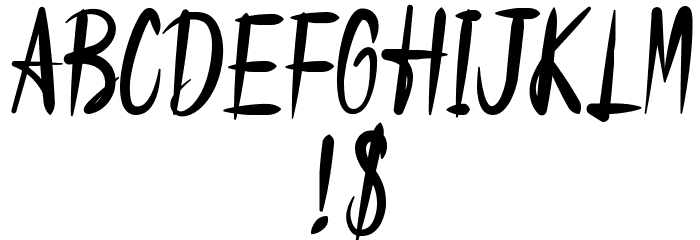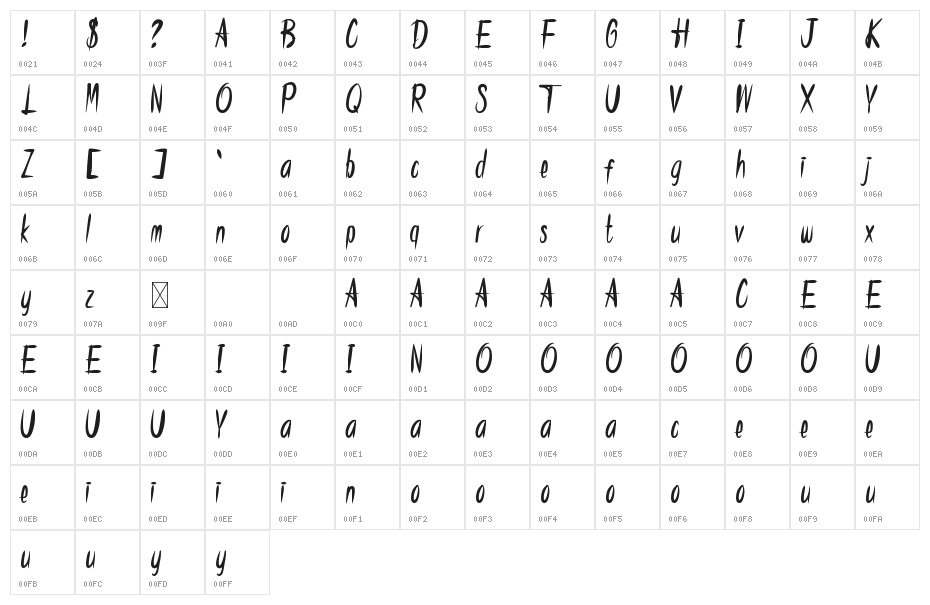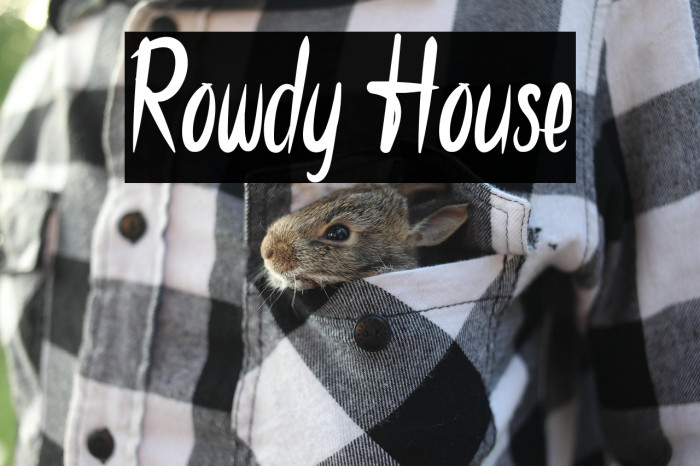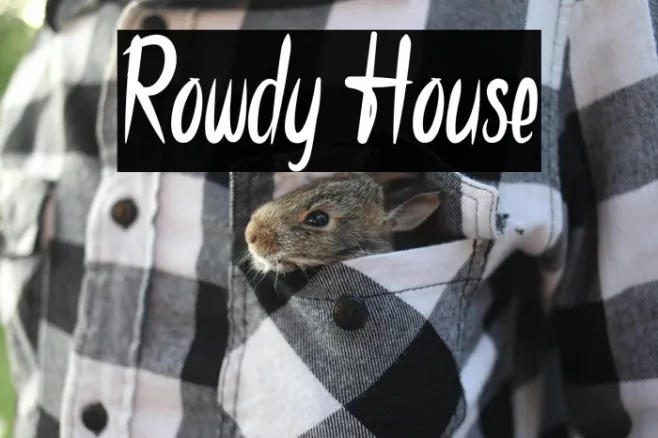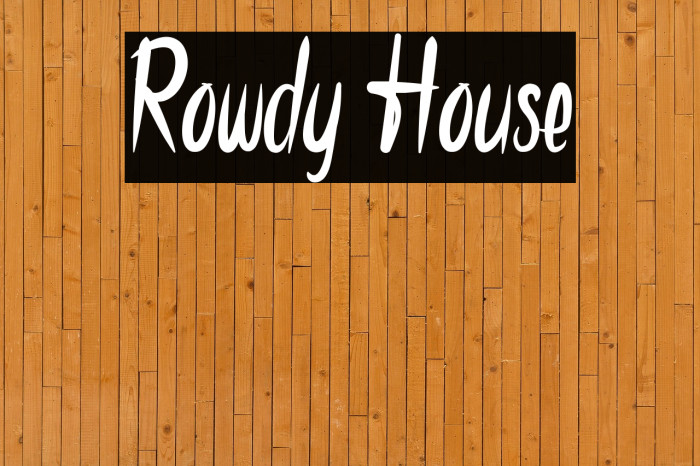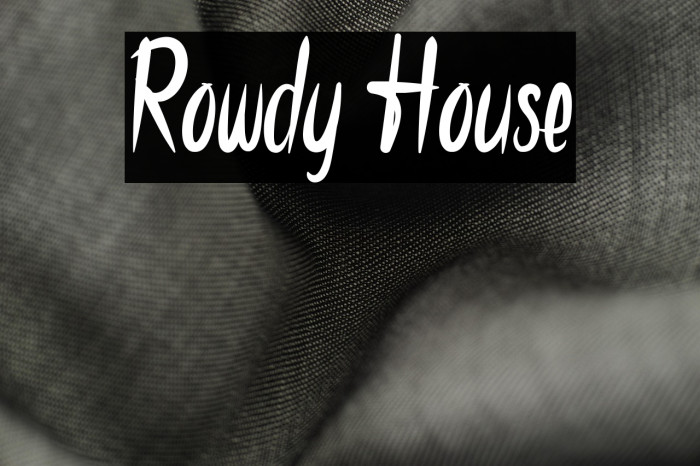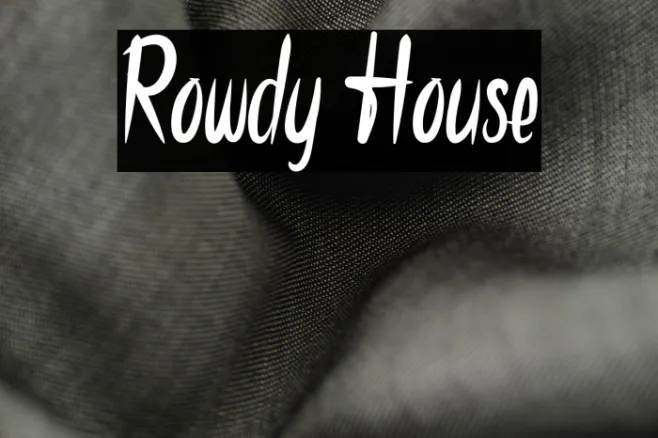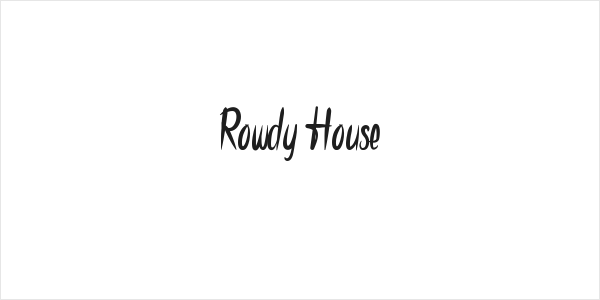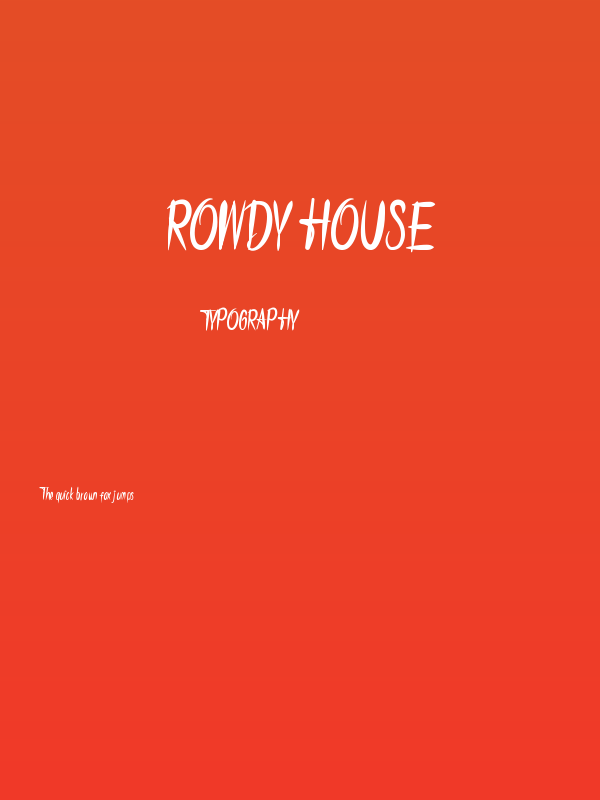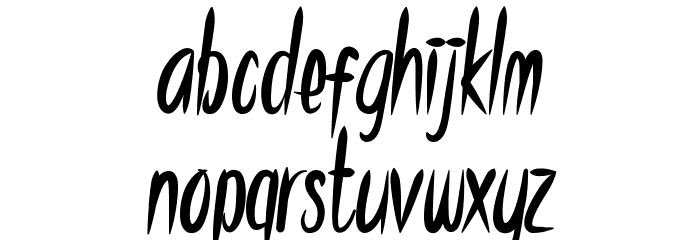
Rowdy House Font
Rowdy House Description
This font features a bold and energetic style with a handwritten appearance. The letters are slightly slanted, giving a dynamic and lively feel. The strokes are varied in thickness, adding a sense of movement and flair. The uppercase and lowercase letters maintain a consistent style, with elongated and slightly exaggerated forms. The special characters complement the overall aesthetic, making it suitable for creative and informal designs.
| Proposed Projects | Ideal for posters, event flyers, branding projects, and social media graphics that require a lively and informal touch. |